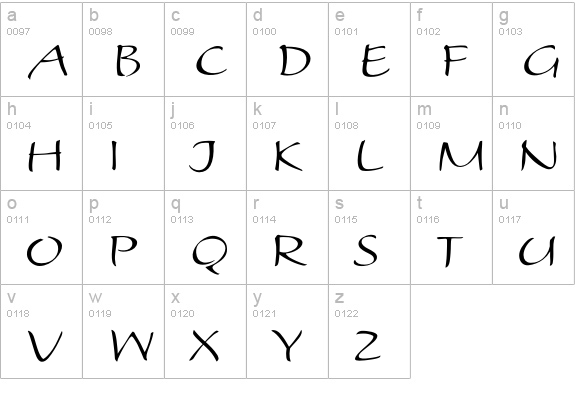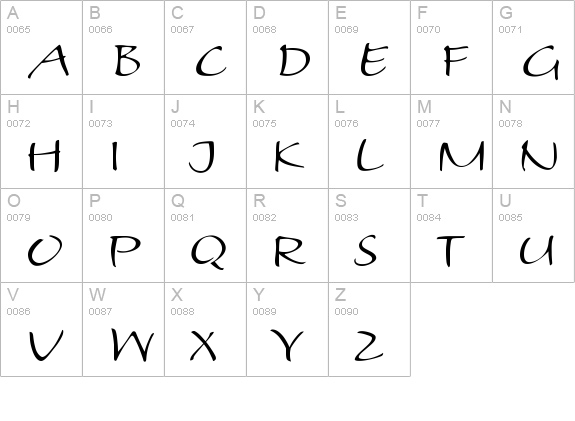
Alhambra Font Details
Alhambra font is a stunning display typeface that exudes elegance and sophistication. With its intricate details and unique design, Alhambra is sure to make any project stand out. This versatile font is perfect for branding, packaging, headlines, and more. And the best part is, Alhambra font is available for free download at FontsMarket.com. So go ahead and add this beautiful font to your collection today!